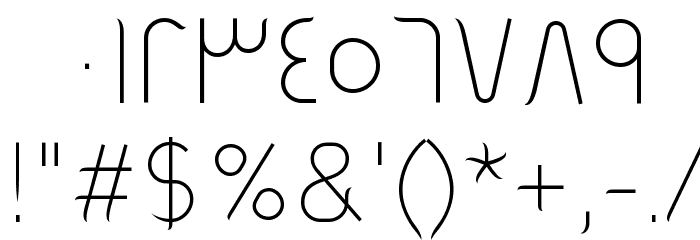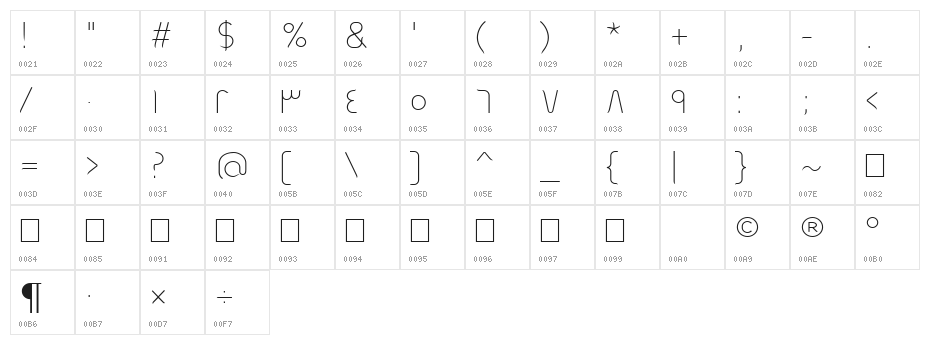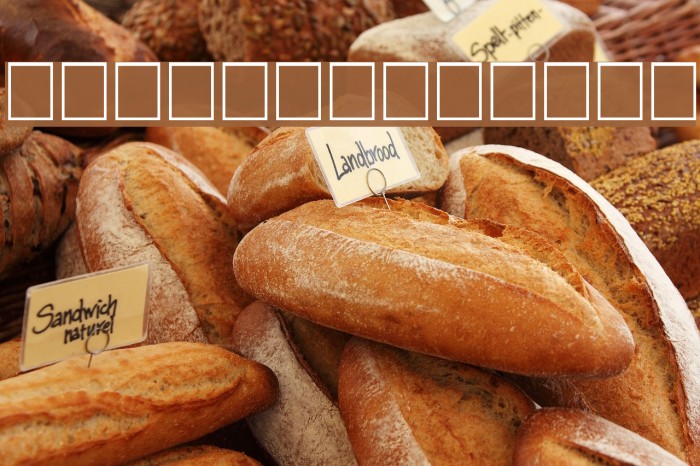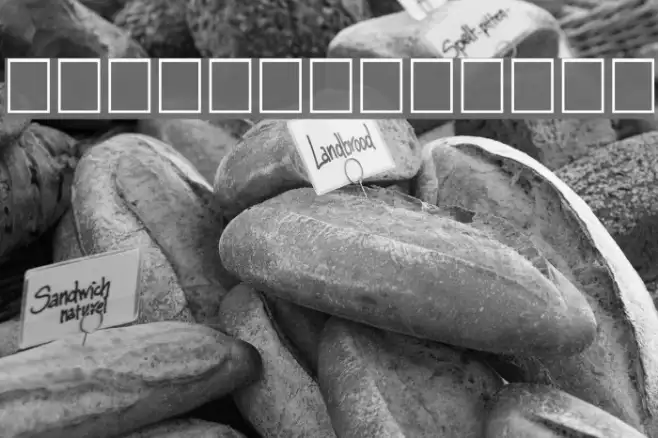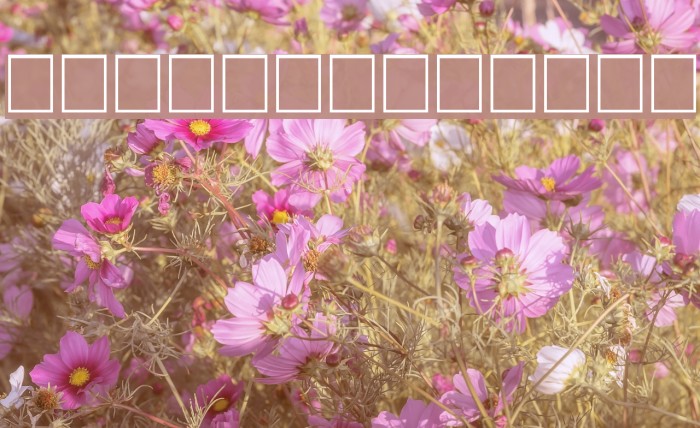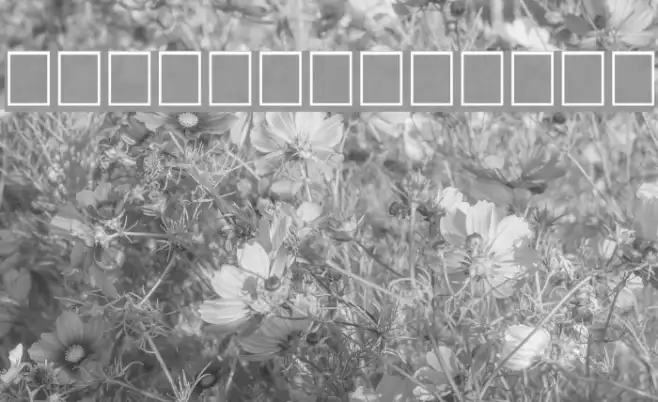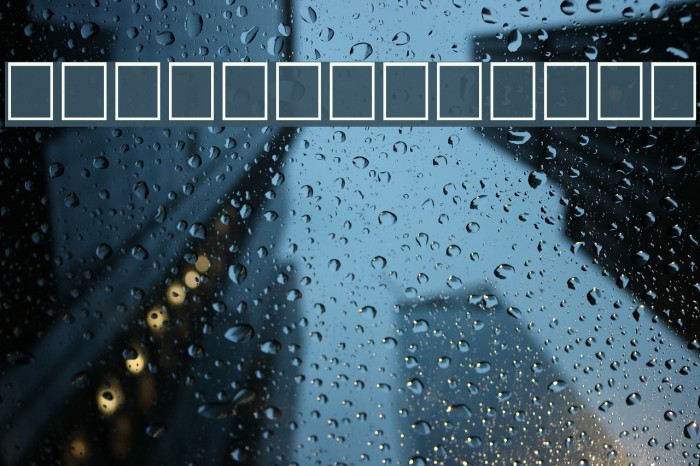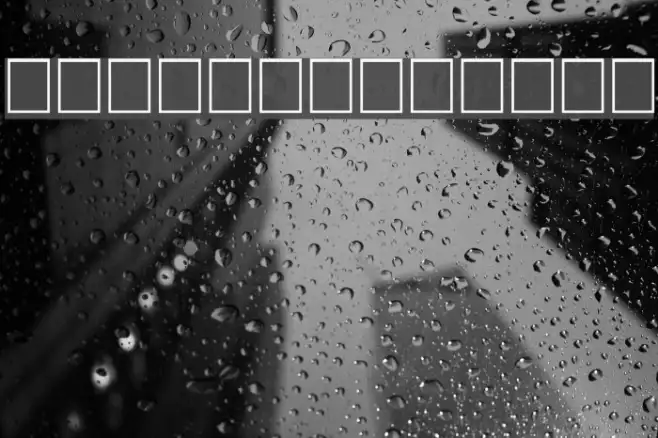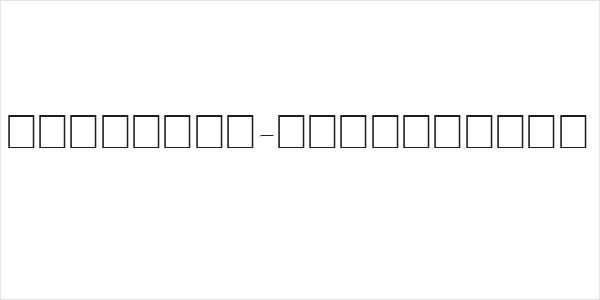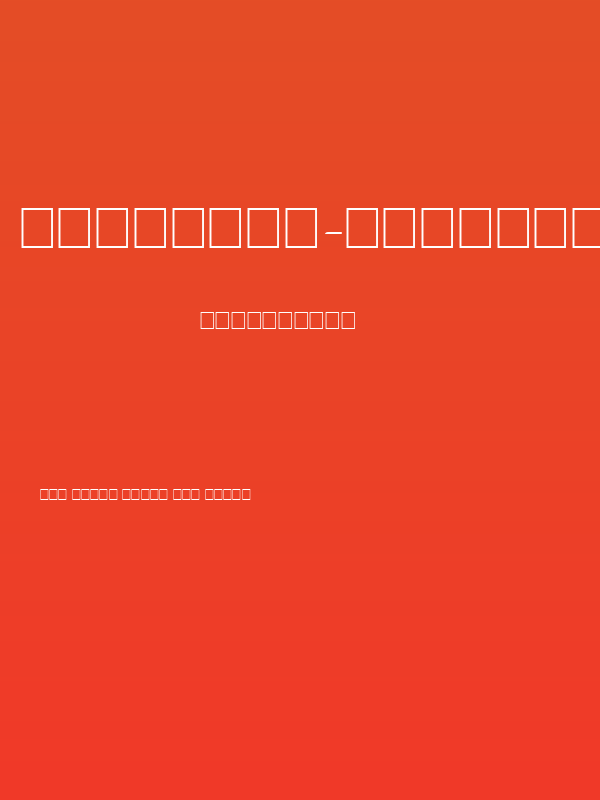
Mehrajan-ExtraLight Font
Mehrajan-ExtraLight Description
This font features an elegant and minimalist design, characterized by its extra light weight and clean lines. The characters are crafted with a modern aesthetic, offering a sleek and sophisticated appearance. The font's design emphasizes simplicity and readability, making it suitable for a variety of applications. Its geometric shapes and uniform stroke widths contribute to a contemporary and stylish look, ideal for projects that require a touch of modernity and elegance. The font's versatility allows it to be used in both digital and print media, providing a professional and polished finish.
Use CaseHeadlines, Body text, Logos
Proposed ProjectsIdeal for branding, editorial design, web design, and minimalist posters.